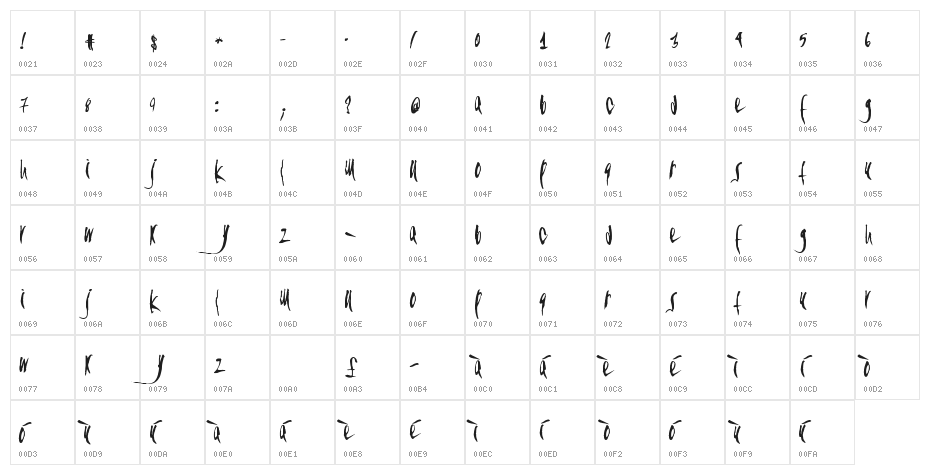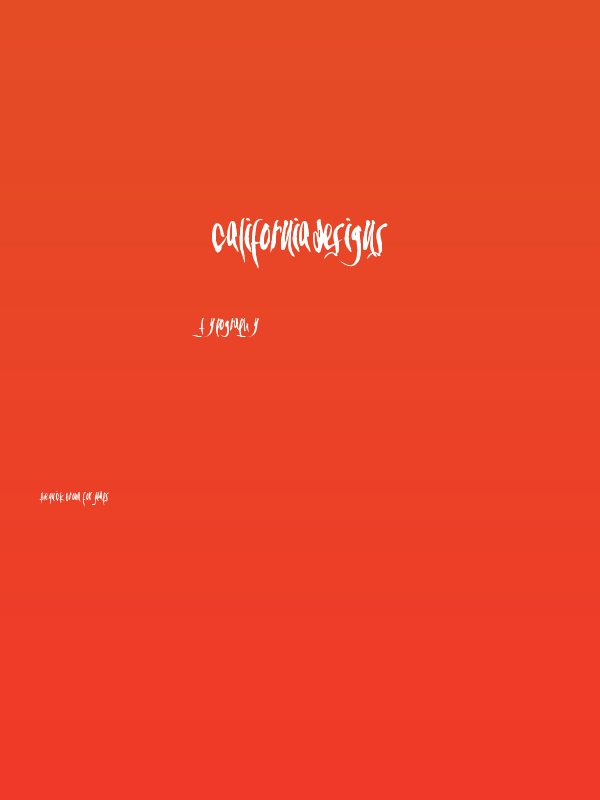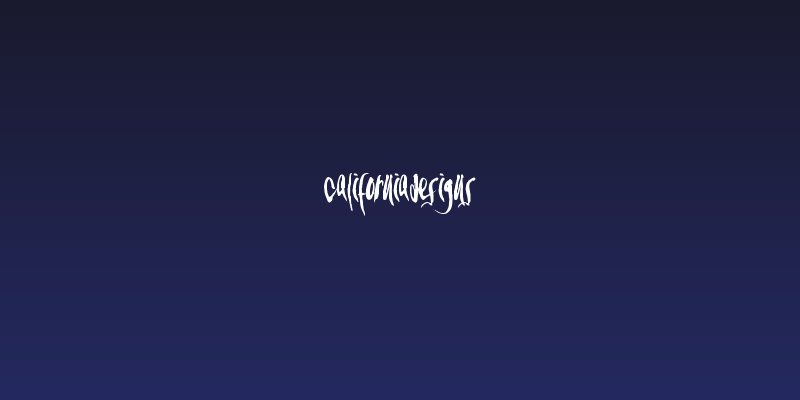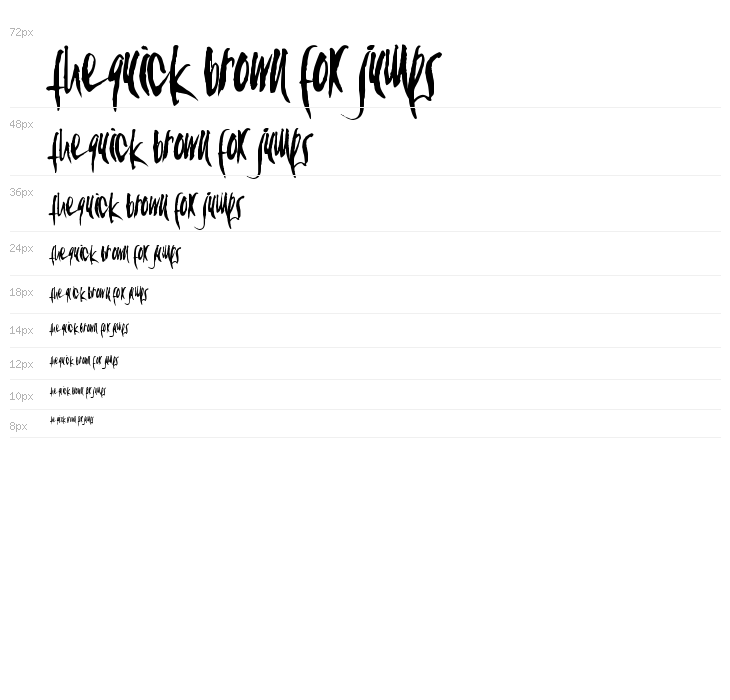
CaliforniaDesigns Font
CaliforniaDesigns Description
This font exhibits a dynamic and expressive handwritten style, characterized by its fluid and energetic strokes. The letters are crafted with a sense of movement, giving a lively and artistic feel. The uppercase and lowercase letters maintain a consistent style, with exaggerated curves and a slightly irregular baseline that adds to its charm. The numerals are equally expressive, matching the overall aesthetic of the alphabet. Special characters are designed with the same flair, ensuring a cohesive look across all glyphs. This font is perfect for projects that require a personal touch or an artistic flair.
| Overall Style | Artistic |
| Use Case | Logos, Headlines, Artistic projects |
| Proposed Projects | Ideal for greeting cards, artistic posters, branding for creative businesses, and social media graphics. |